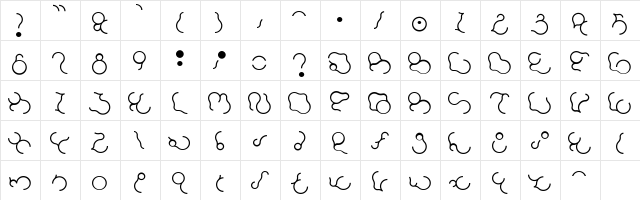
Paresser ExtraLight
Design Context for Paresser Typeface
Paresser takes a measured approach to typography — its balanced proportions and neutral character make it a reliable workhorse for both digital and print work. The delicate stroke weight brings airiness and refinement to layouts.